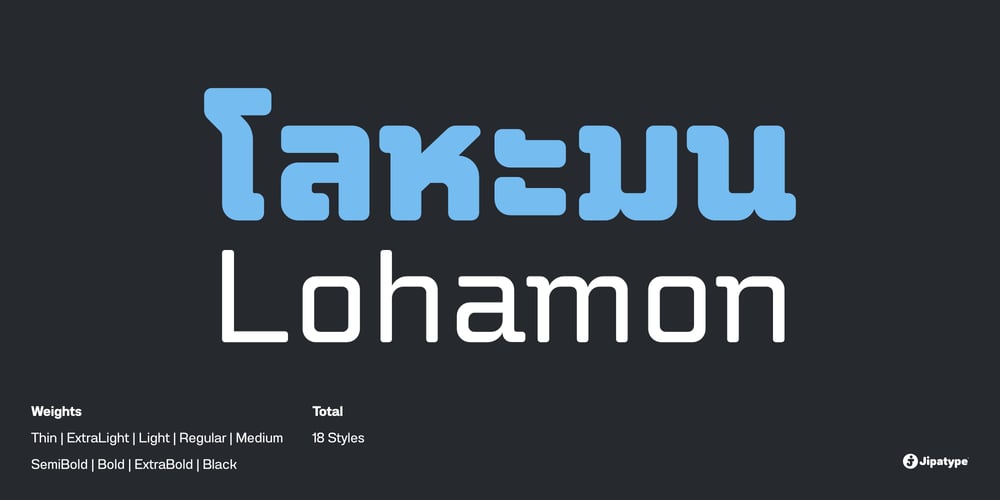
Lohamon Font Family was designed by Anupap Jaichumnan and published by Jipatype. Lohamon contains 18 styles and family package options. Lohamon is a robust font featuring a unique blend of square structures with softened edges, reminiscent of metal rods expertly shaped into letters. Its design exudes a sense of solidity and resilience. With a selection of 18 styles available, it caters to diverse needs, supporting Latin 1 characters and Thai characters. Whether for online content or traditional print, Lohamon is well-suited for a range of publications. It particularly shines in contexts related to industrial work, construction, and allied fields, where its rugged aesthetic complements the theme effectively.